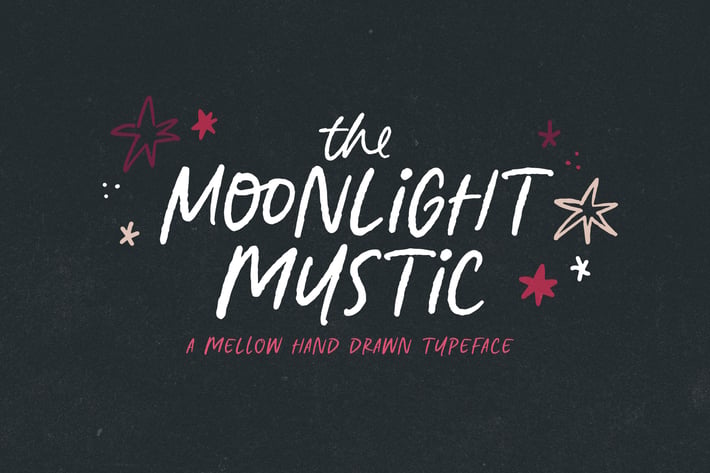
Moonlight Mystic Typeface
MakeMediaCo
Introducing The Moonlight Mystic, a slanted sans serif typeface, handwritten for an organic feel. Looks super cute on merch, greeting cards and quotes. Use the doodles to create decorative typography to spice up your design work!
- The Moonlight Mystic Dingbats (OTF) - a super hand set of hand drawn dingbats, including curls, swirls and star doodles.
- English Only Glyphs with select catchwords.